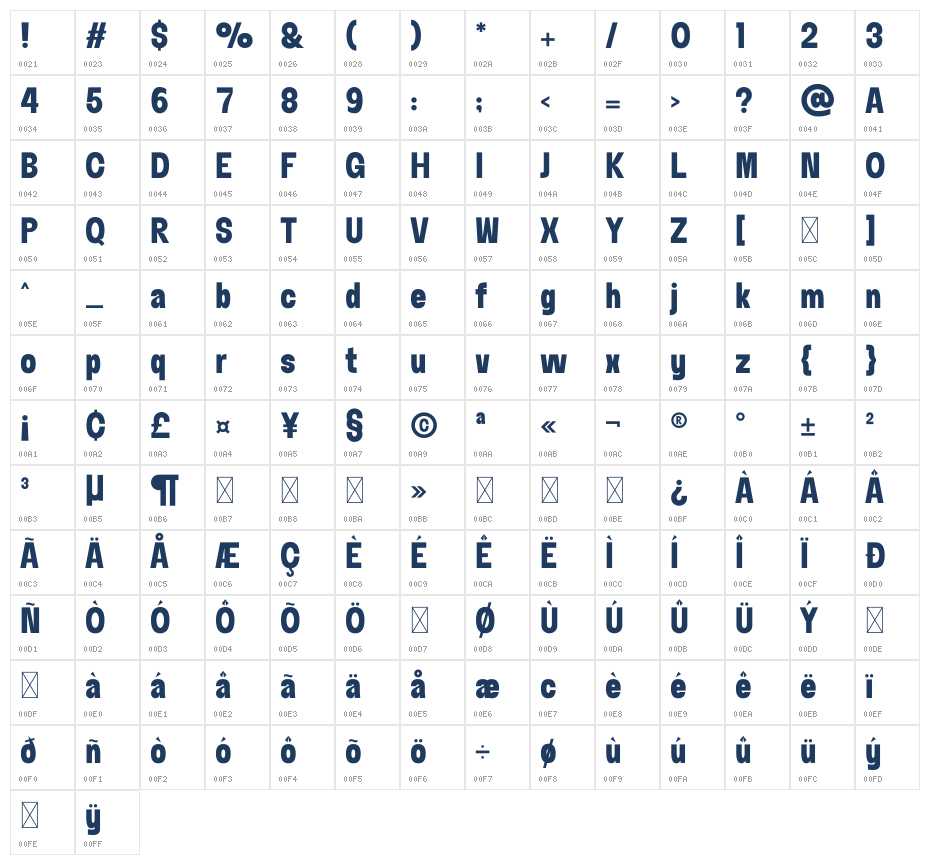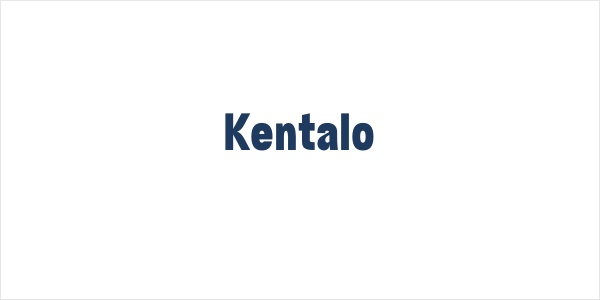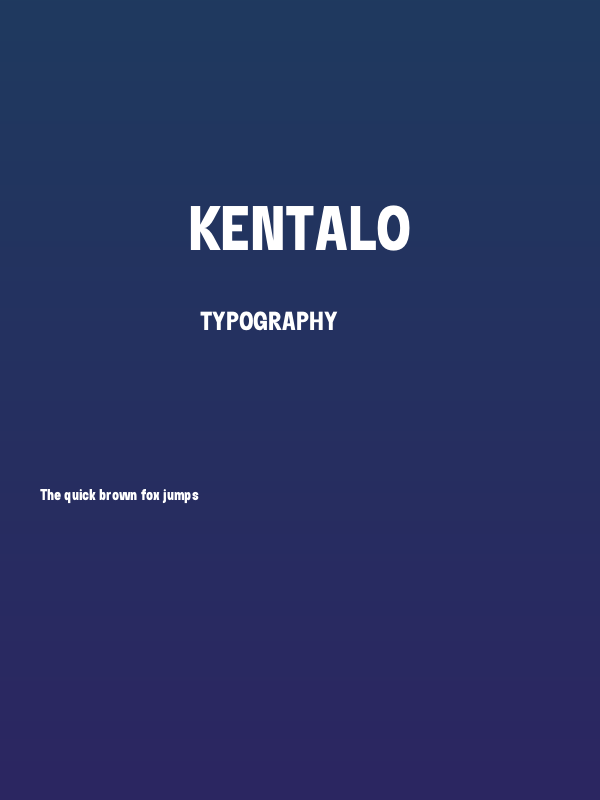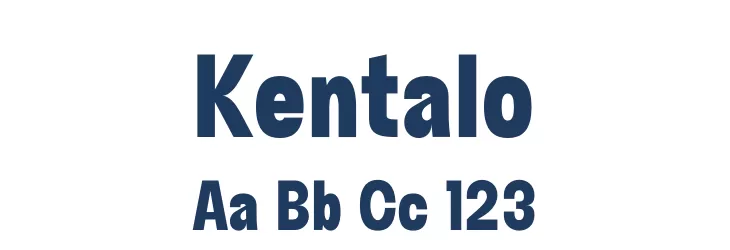
Kentalo Font
Kentalo Description
Bold, sans-serif typeface with a modern and sturdy appearance, characterized by thick strokes and uniform line widths.
| Overall Style | Modern, Geometric |